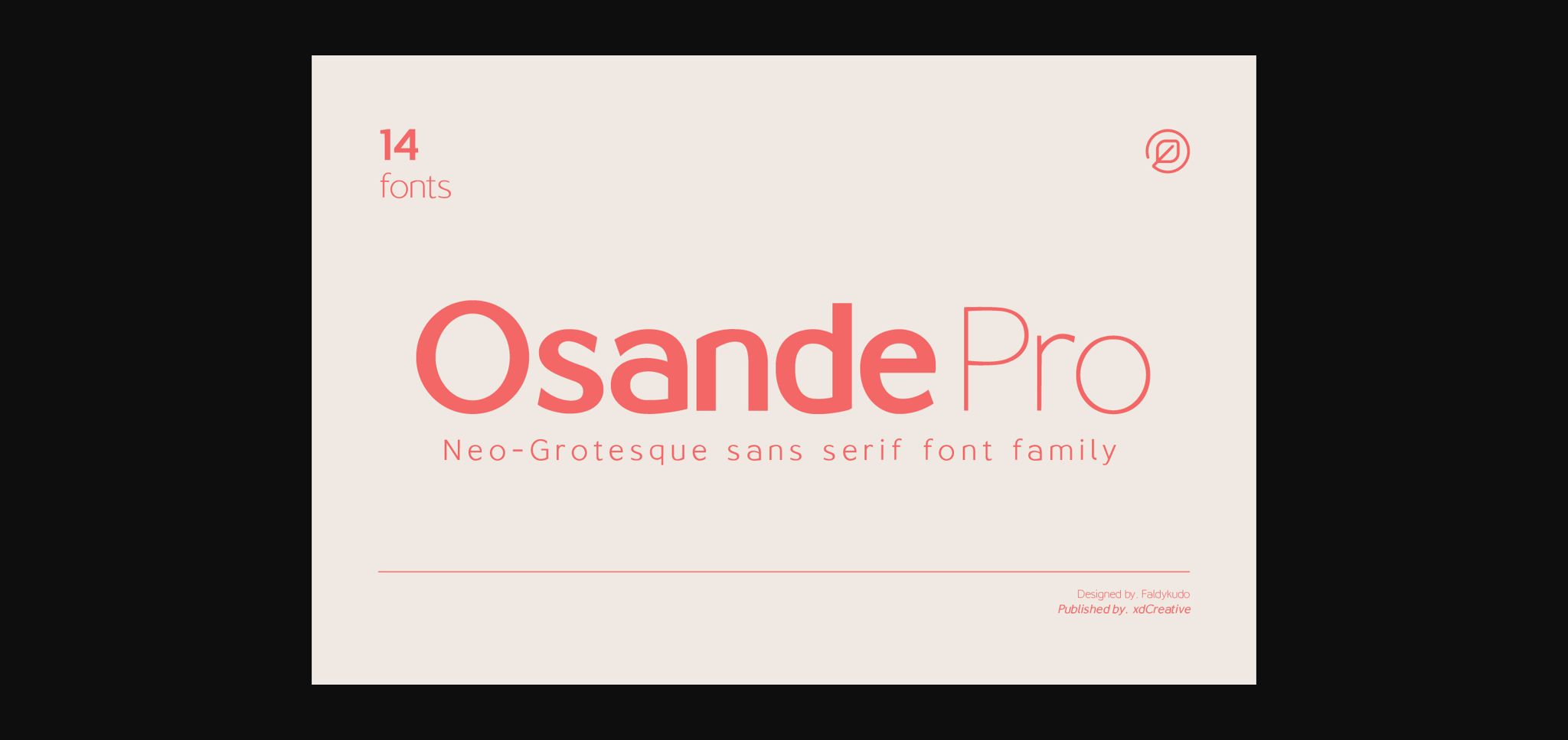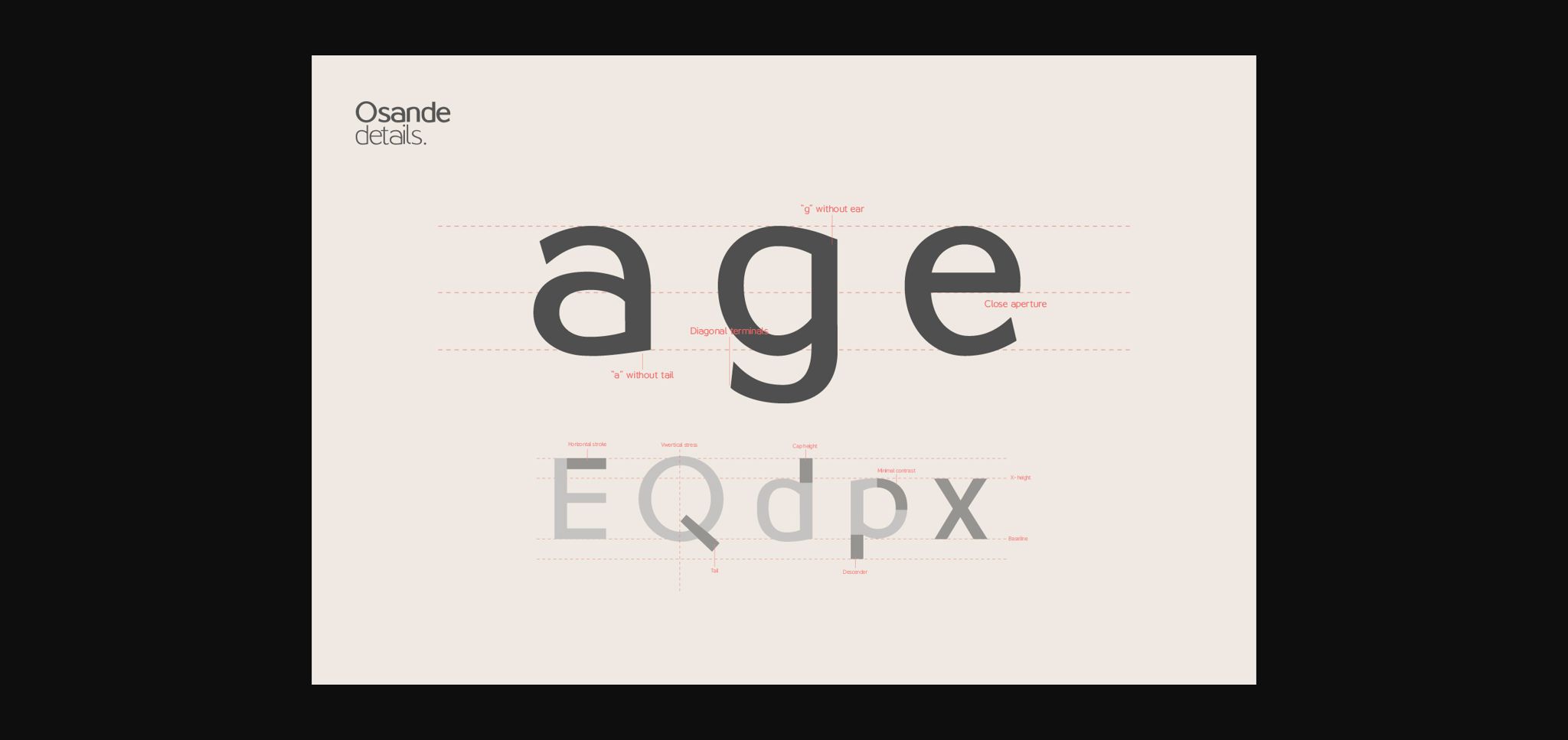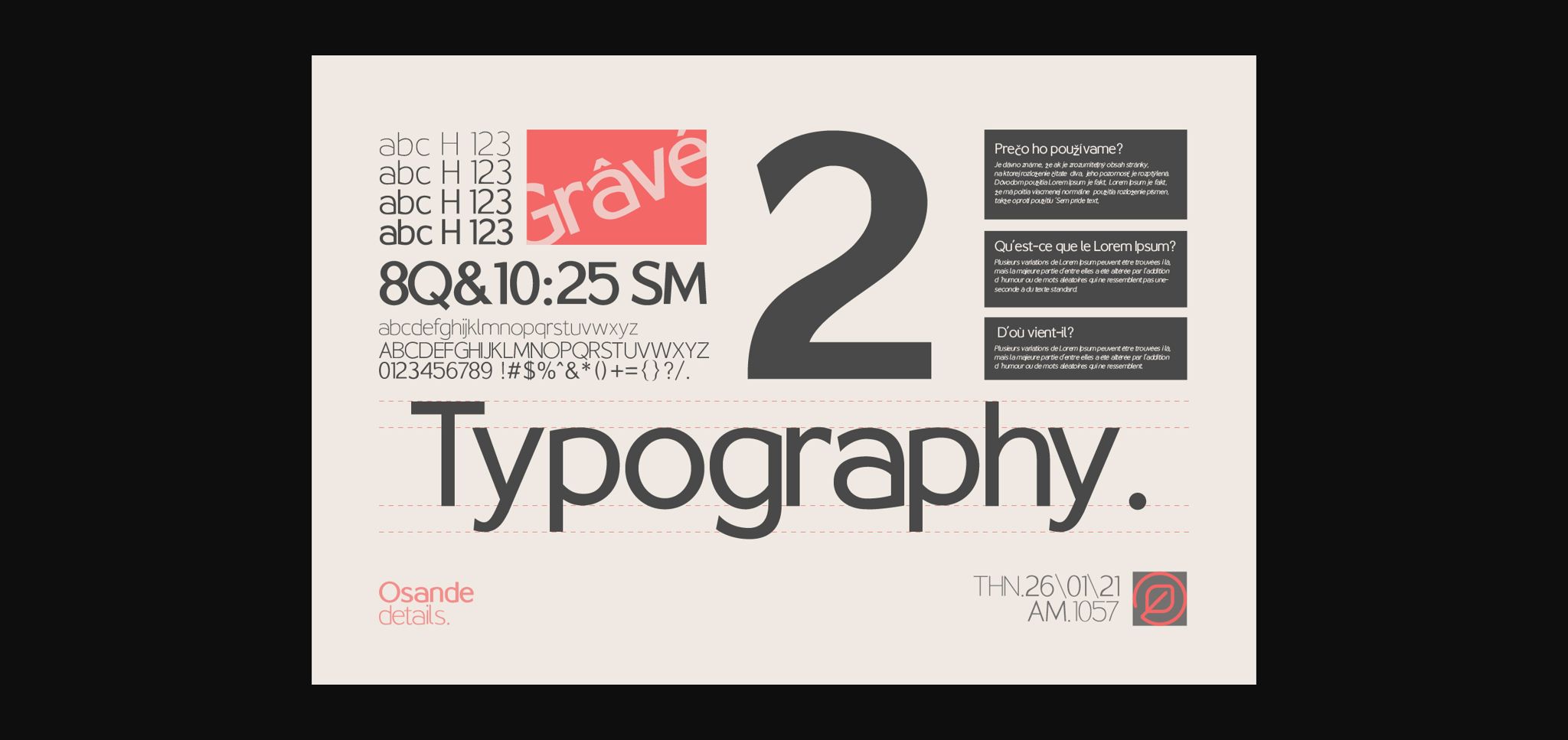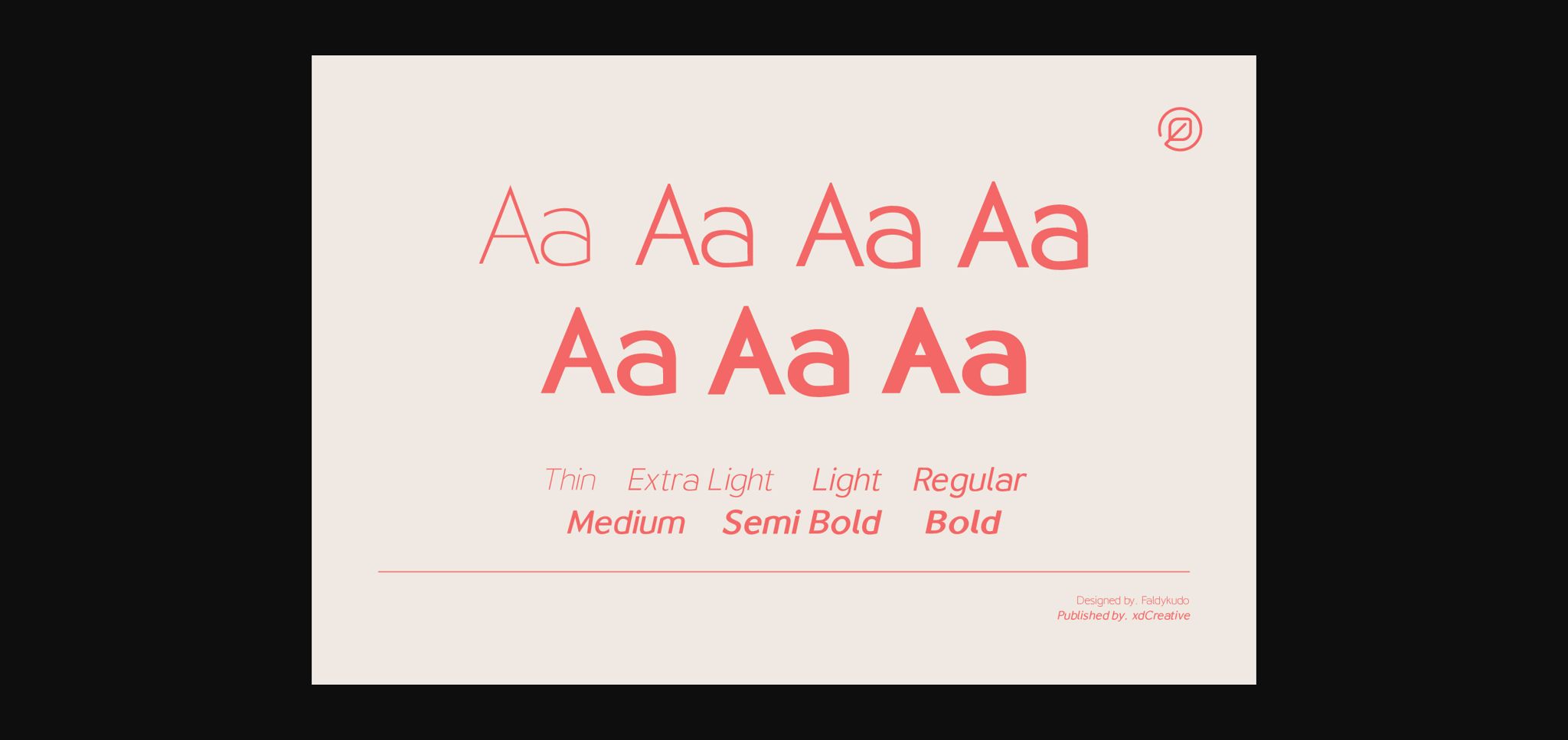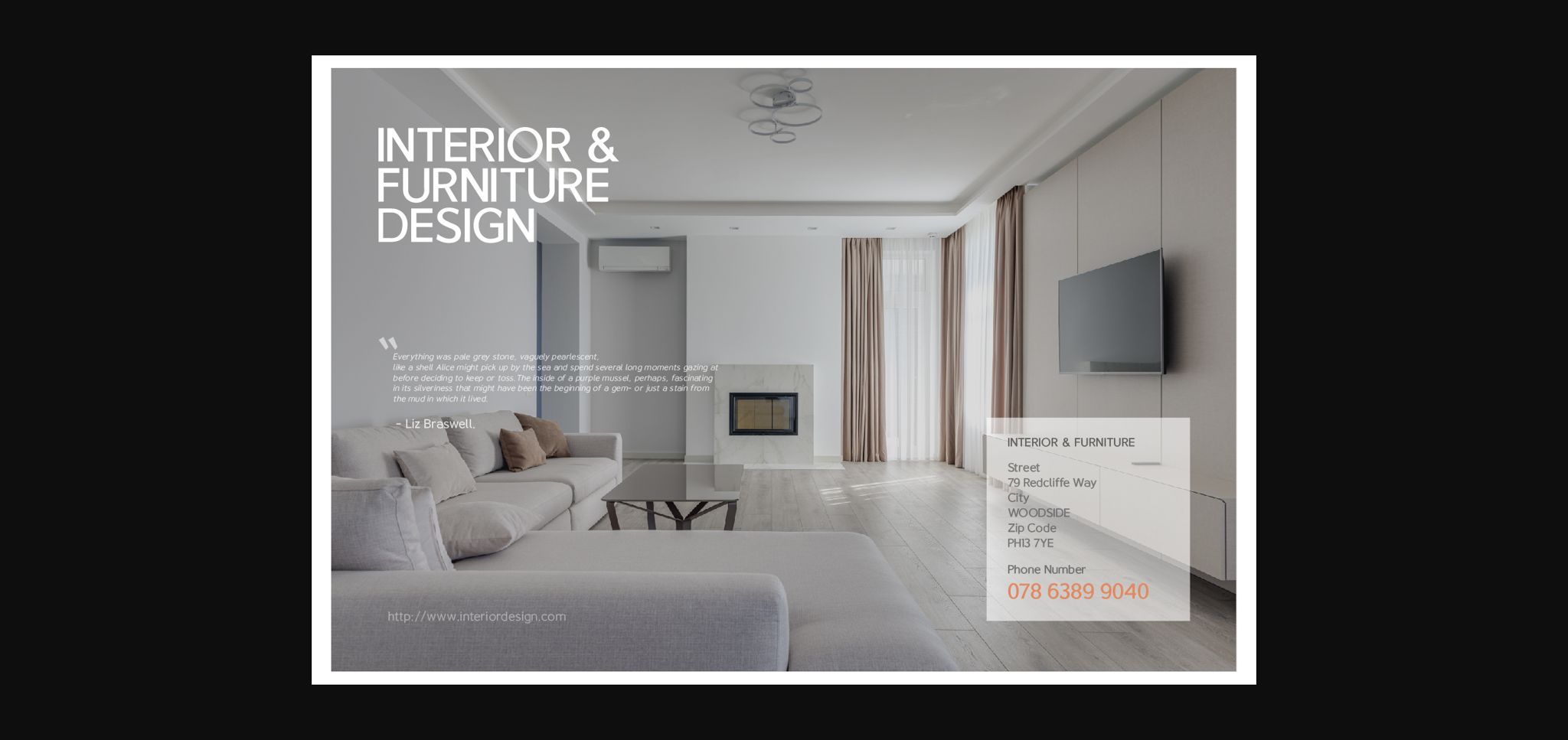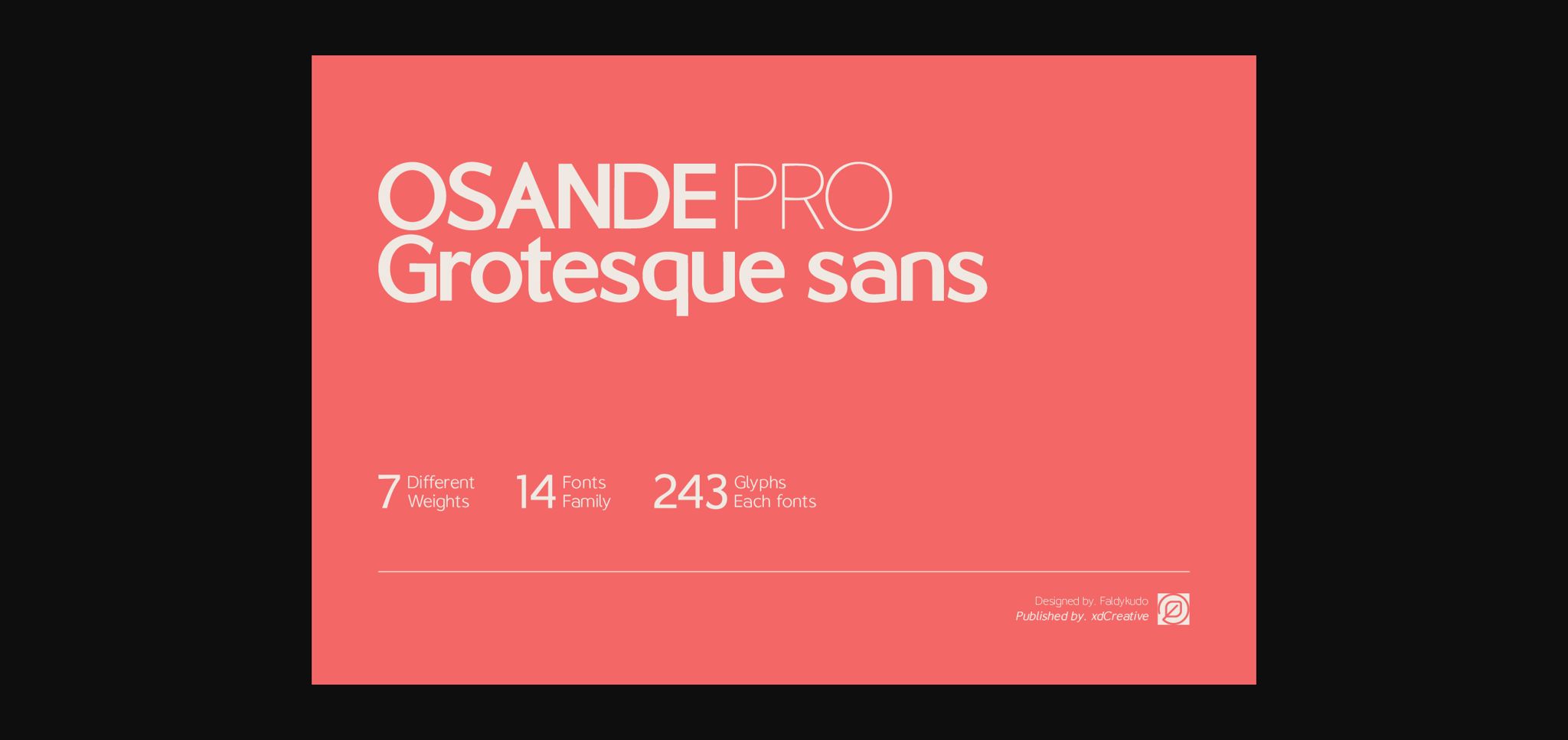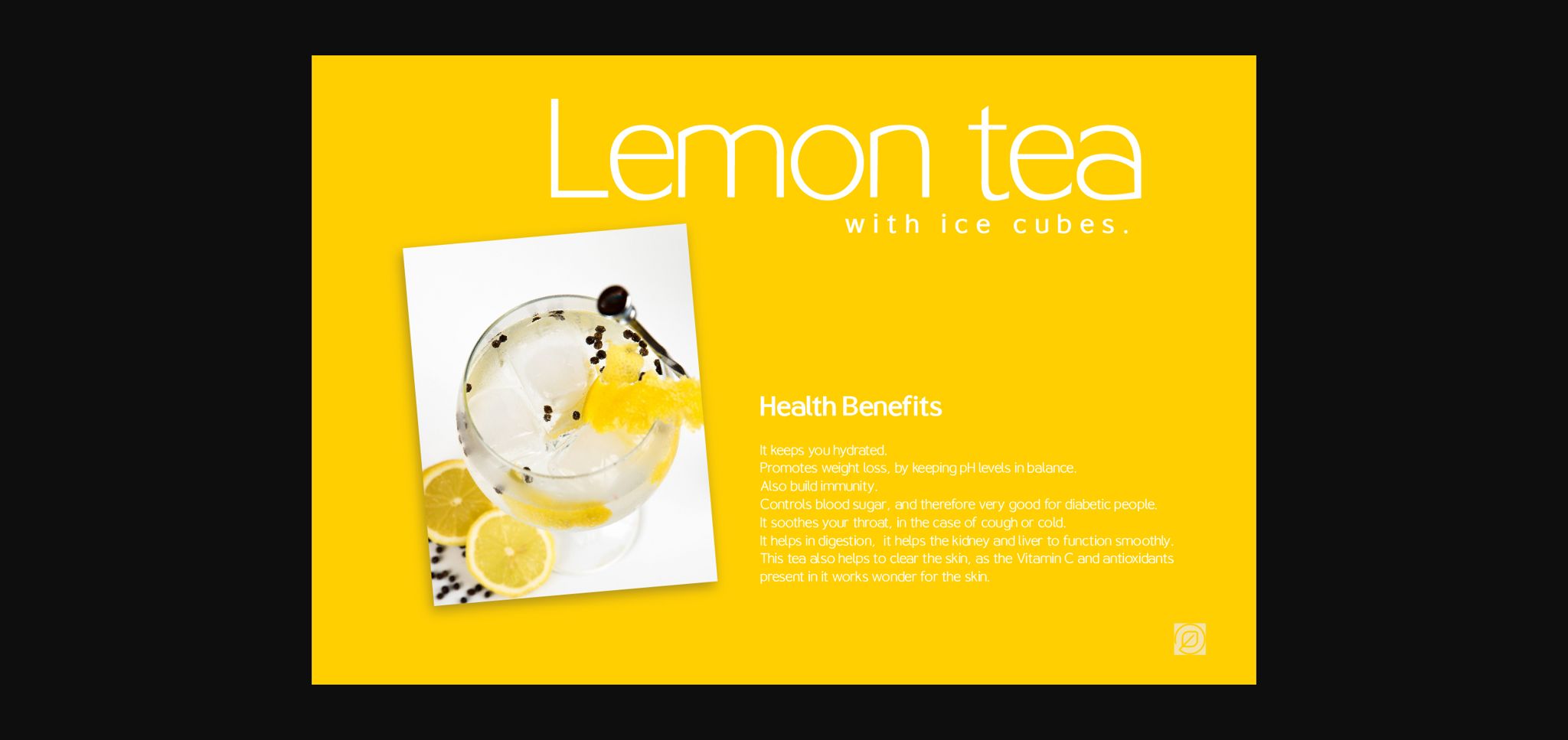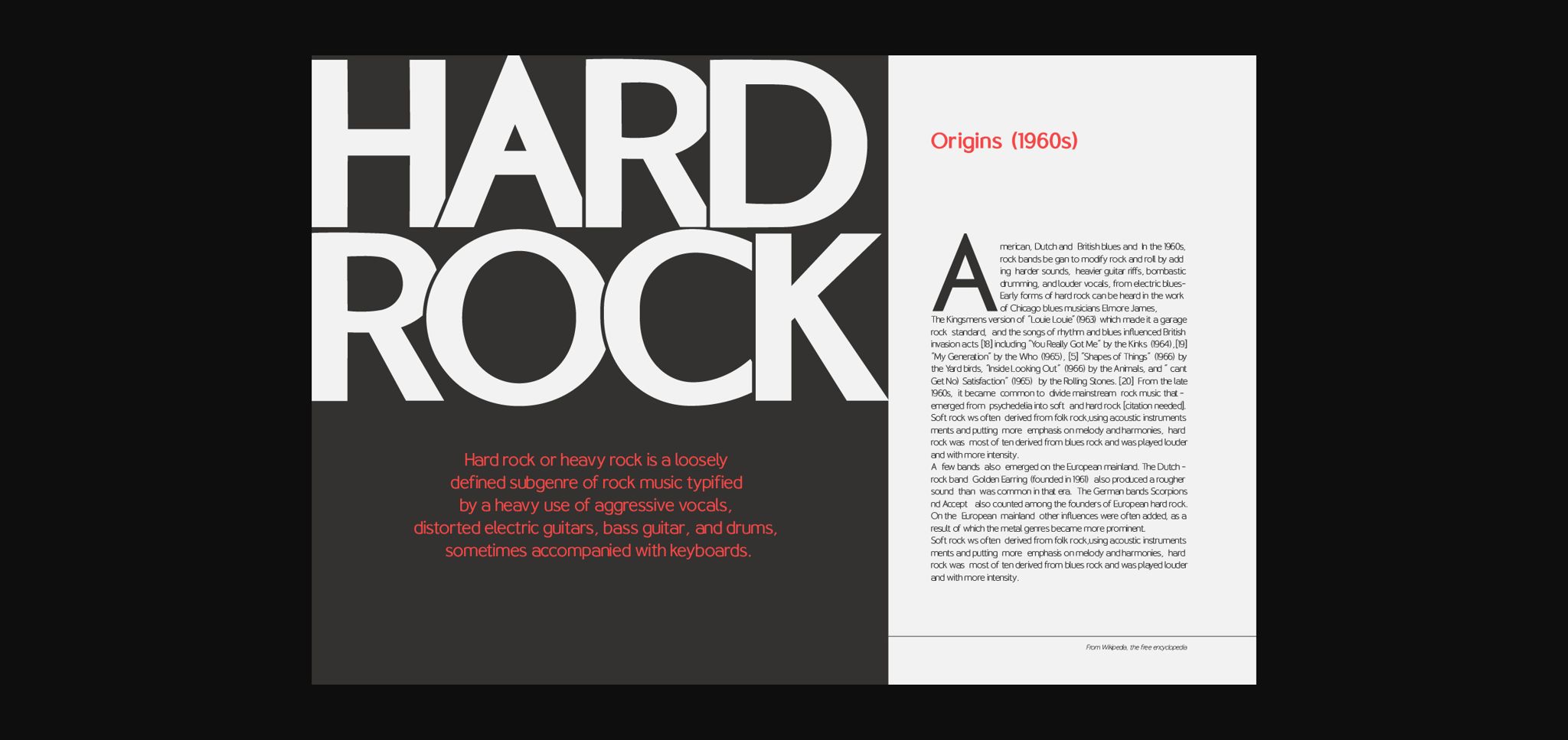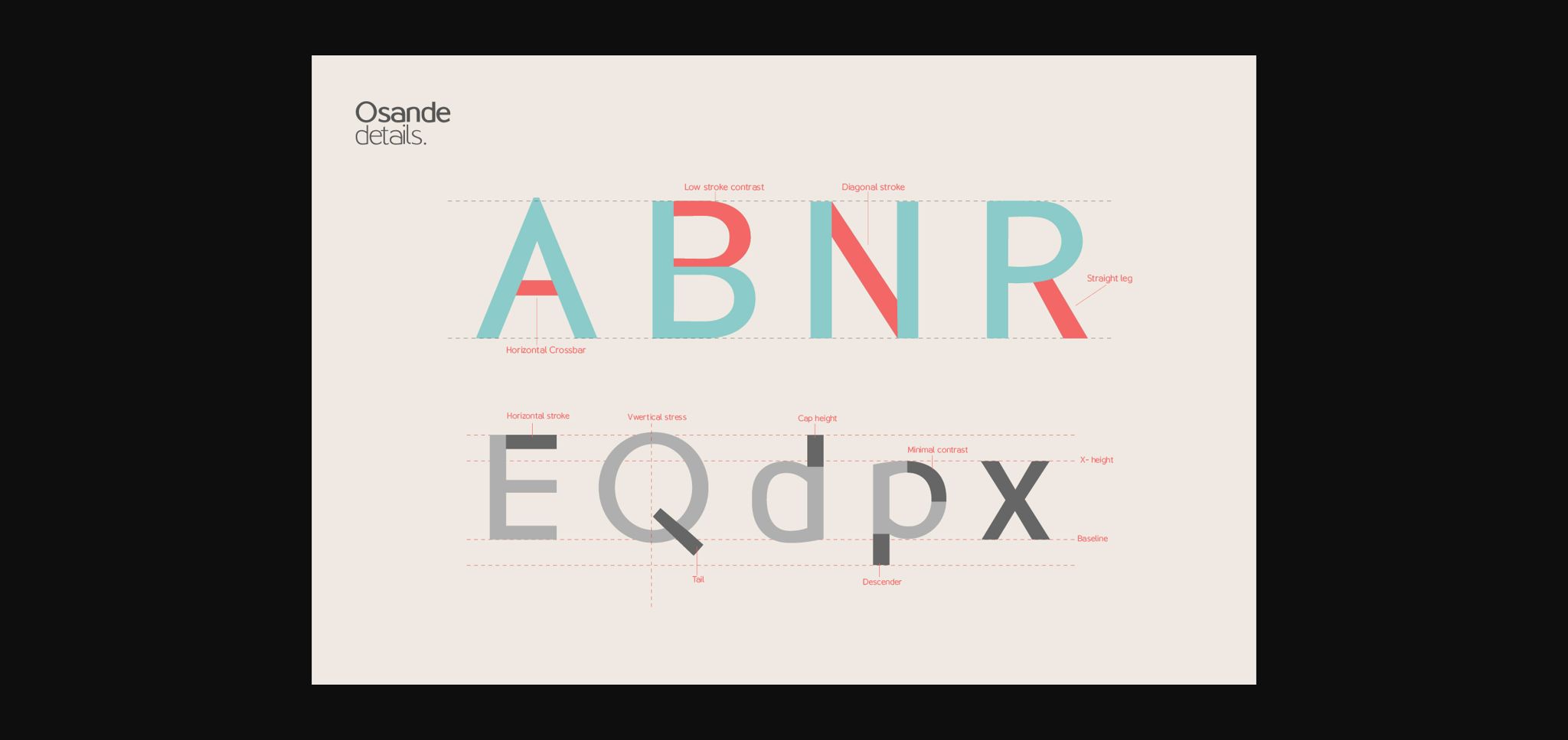
Osande Font
About Osande Font
Osande is a modern sans serif font with neo-Grotesque touch, more homogenous forms with minimal stroke contrast. Osande the font family contains 3 basic forms: italics, obliques, and upright. Each of which has 7 different weights ( Thin, Extra Light, Light, Regular, Medium, Semibold, and Bold ).
It can easily be matched to an incredibly large set of projects, so add it to your creative ideas and notice how it makes them stand out!